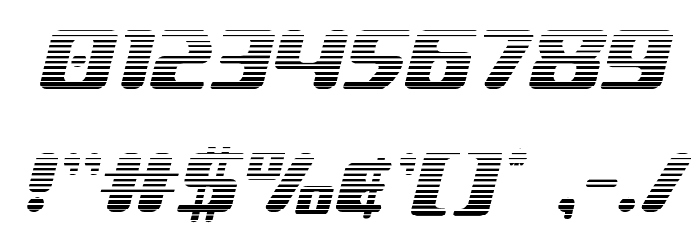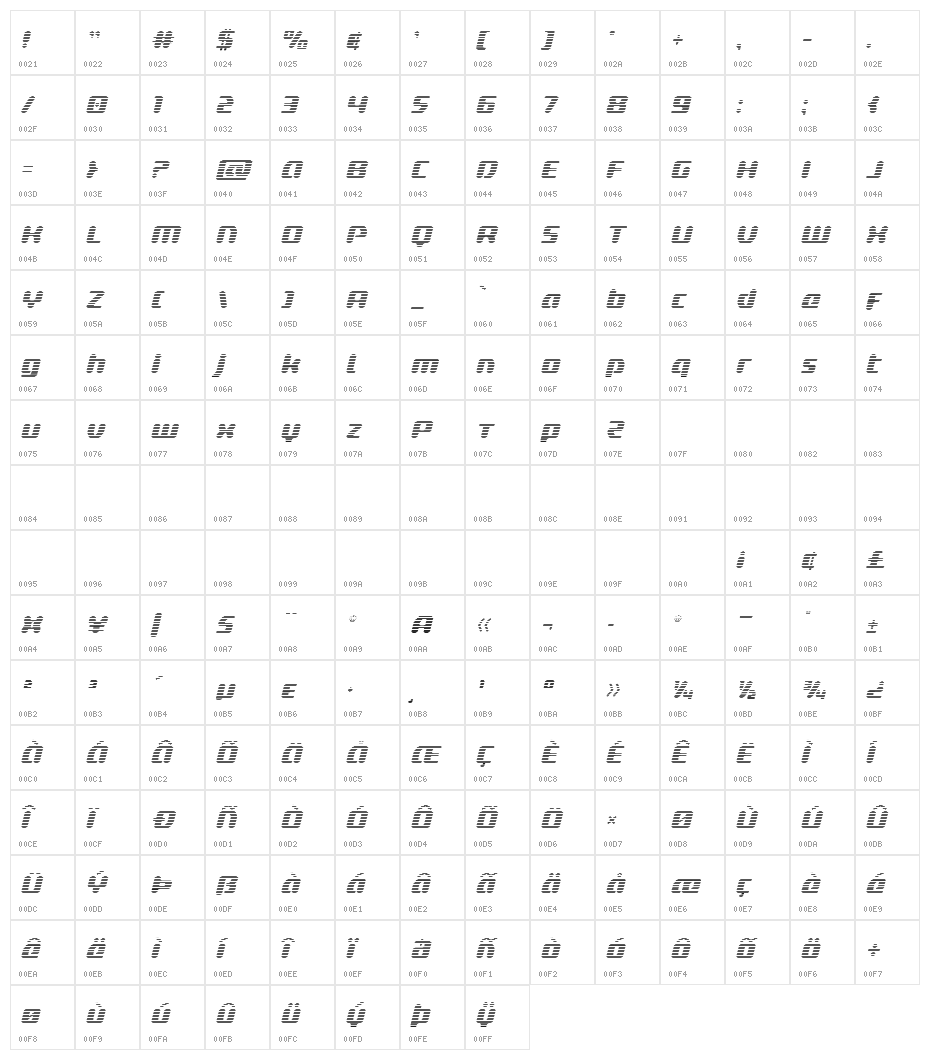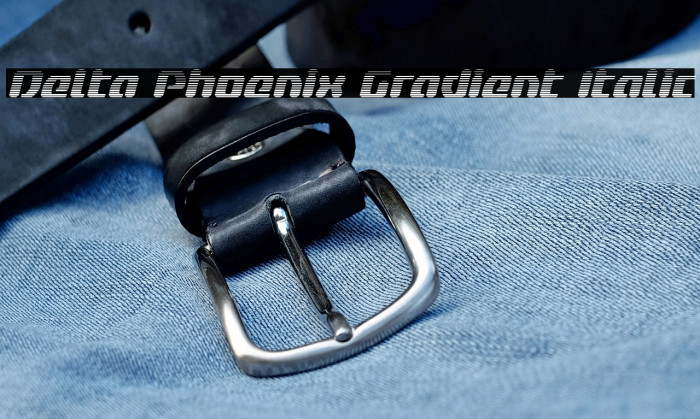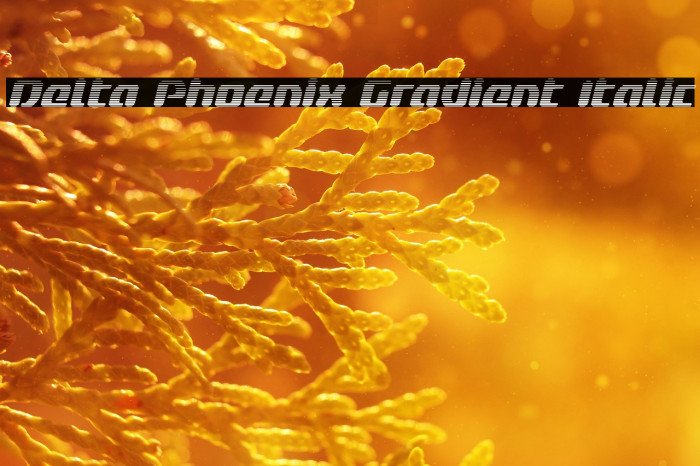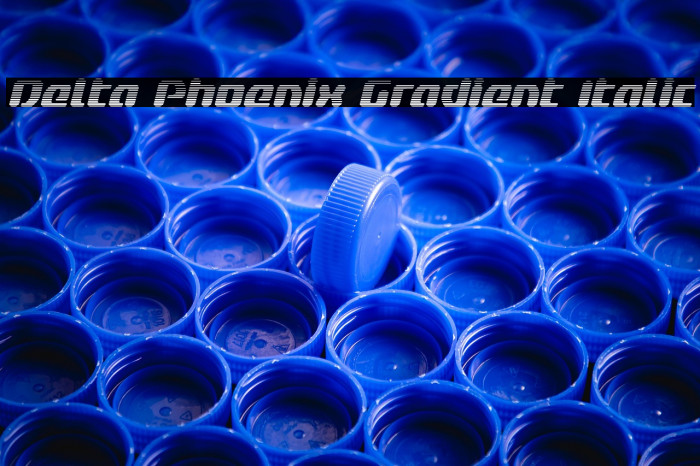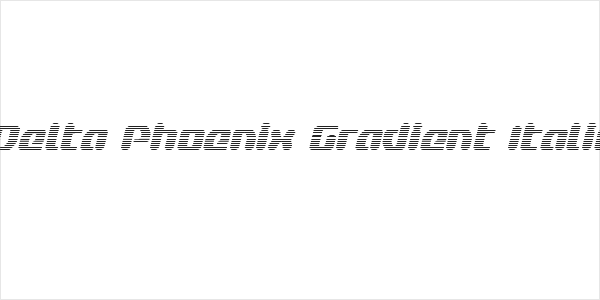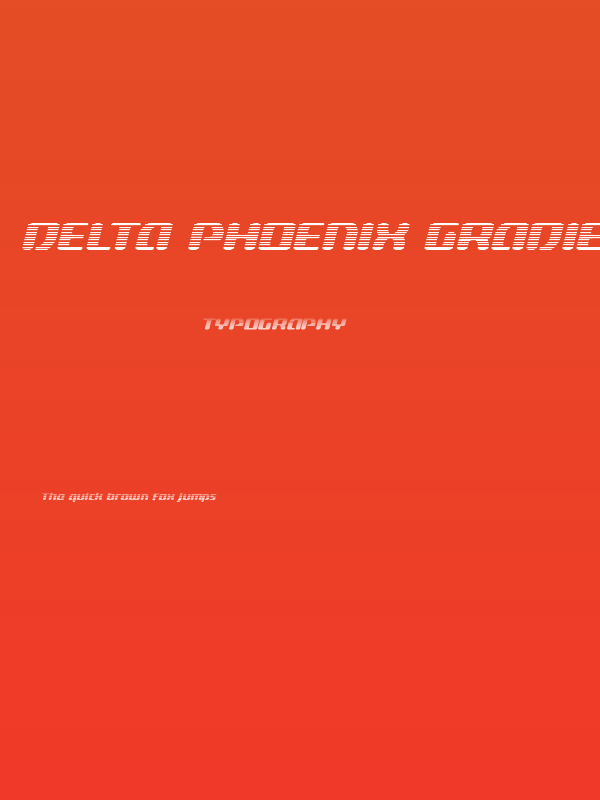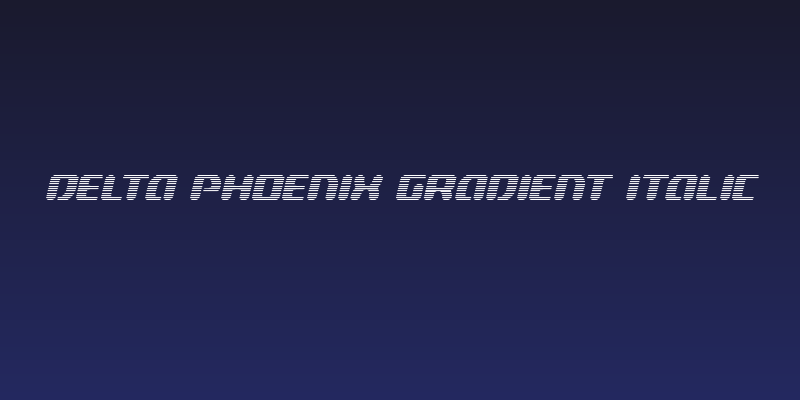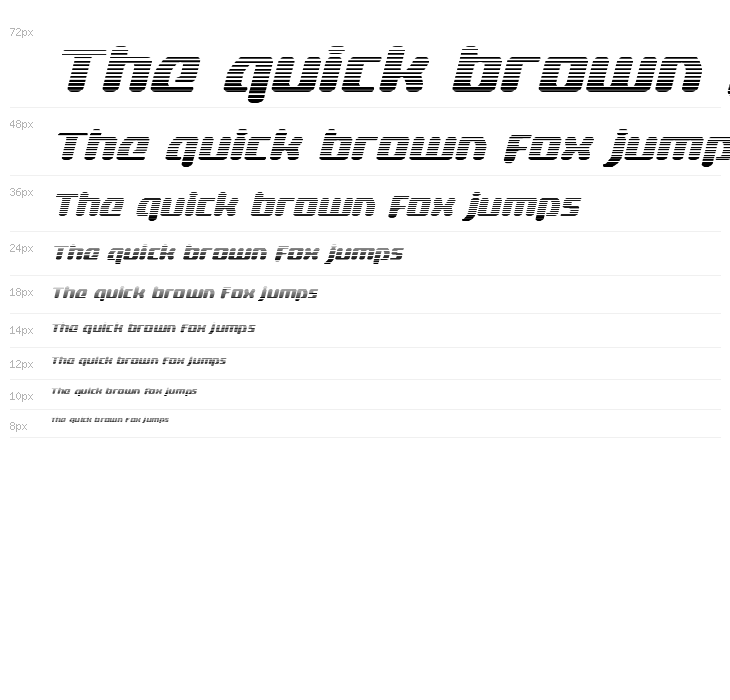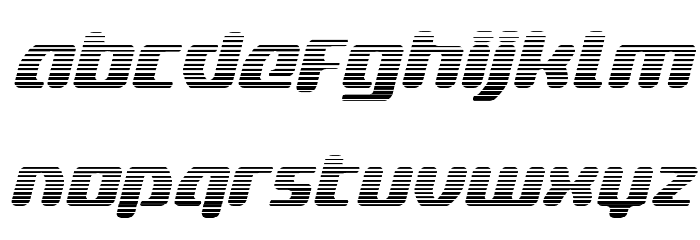
Delta Phoenix Gradient Italic Font
Delta Phoenix Gradient Italic Description
This font features a futuristic and dynamic design with a strong italic slant, giving it a sense of motion and speed. The characters are composed of horizontal lines that create a gradient effect, adding depth and a unique visual texture. The uppercase and lowercase letters maintain a consistent style, with rounded edges and a bold presence. The numerals and special characters follow the same design principles, ensuring uniformity across all glyphs. This font's distinctive appearance makes it ideal for projects that require a modern and edgy look.